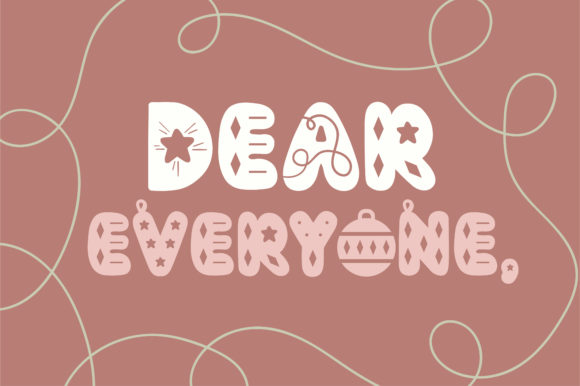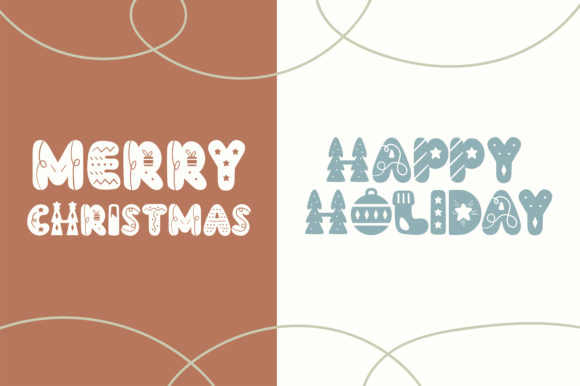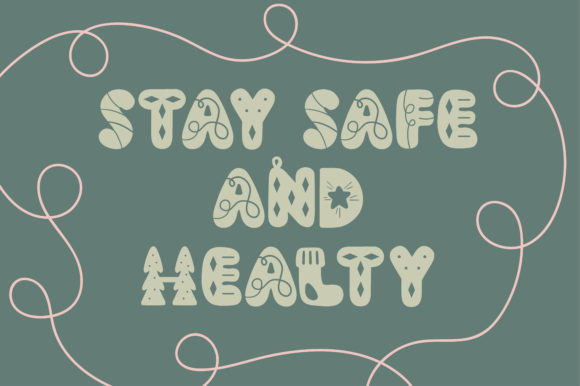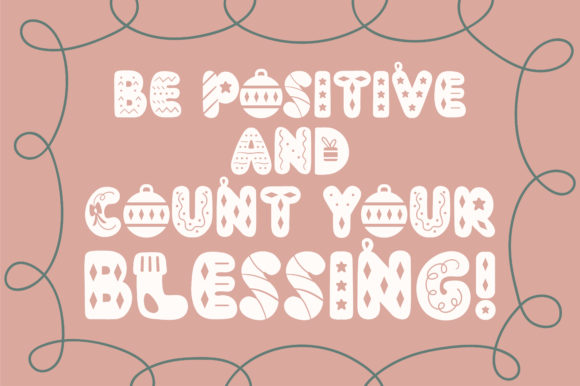
Introduction to Last Christmas Font
Last Christmas is a superb display font with a Christmas holiday theme.
Get creative with its childlike playfulness, and use it to brighten up any of your projects .